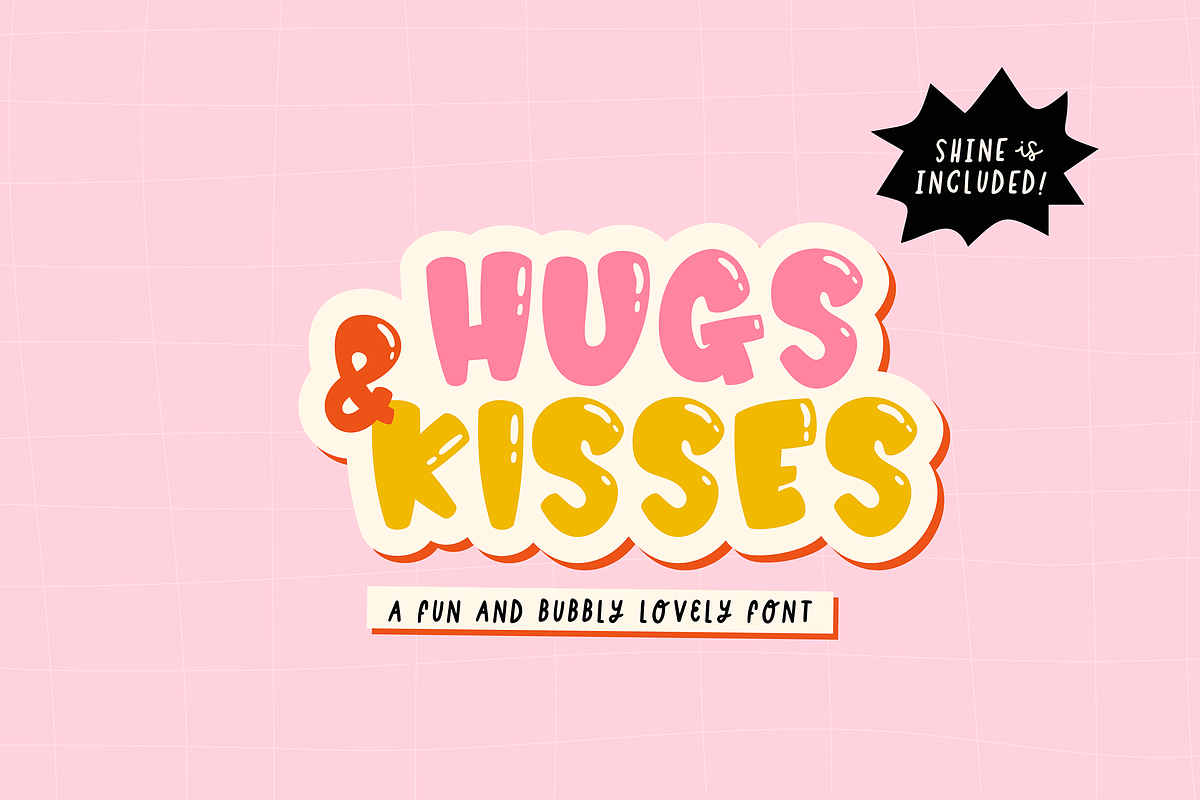
Please note, you must purchase this font for commercial use. However, you can easily download HUGS AND KISSES Font Free Download for personal use and testing purposes. HUGS AND KISSES Font is a playful and charming handwritten typeface designed with love and affection in mind. Perfect for romantic projects, greeting cards, invitations, love letters, and other heartfelt designs, this font adds a personal, intimate touch to any creative endeavor. With its warm and inviting style, HUGS AND KISSES Font Free Download is ideal for conveying emotions and spreading positivity. Whether you're designing a Valentine's Day card, a wedding invitation, or a sweet social media post, this font brings a special, loving vibe to your work. Download HUGS AND KISSES Font Free Download today and explore its potential before opting for a commercial license.